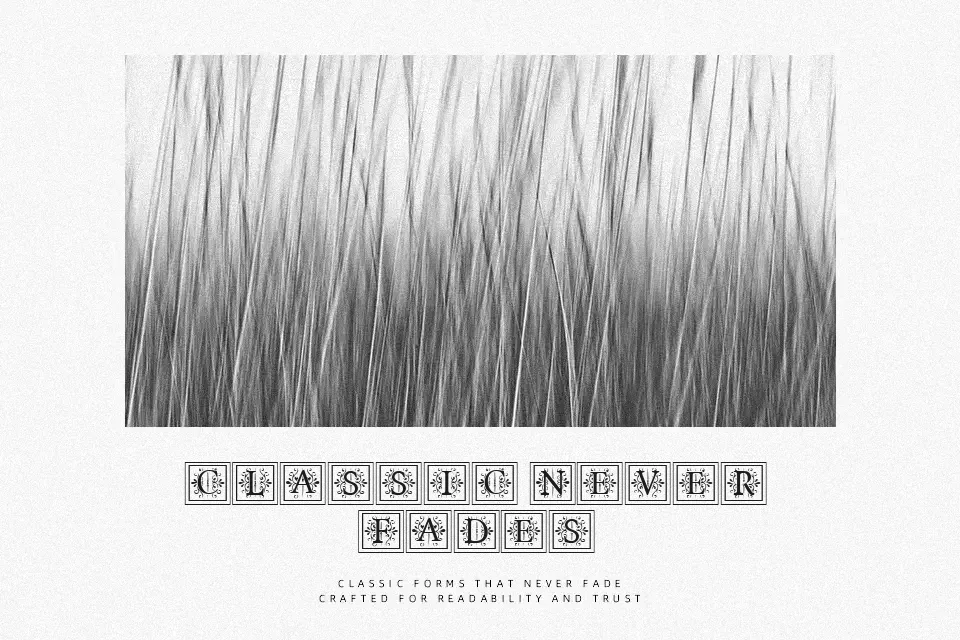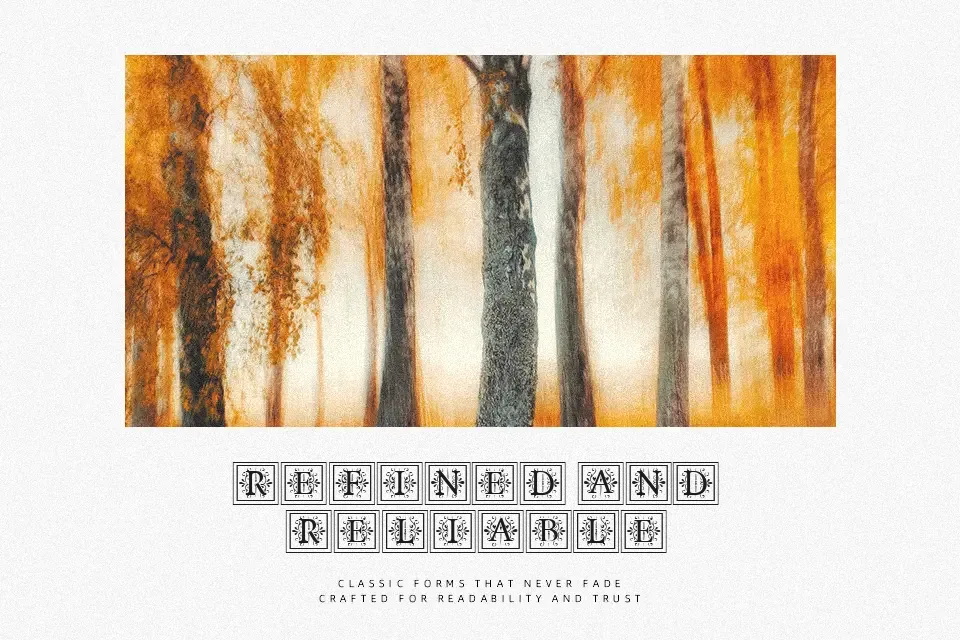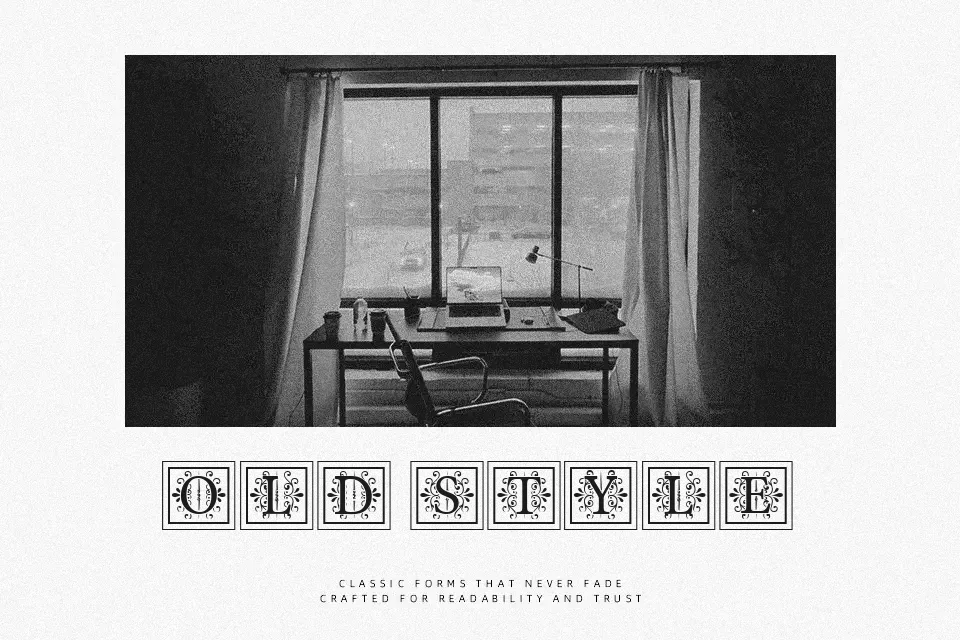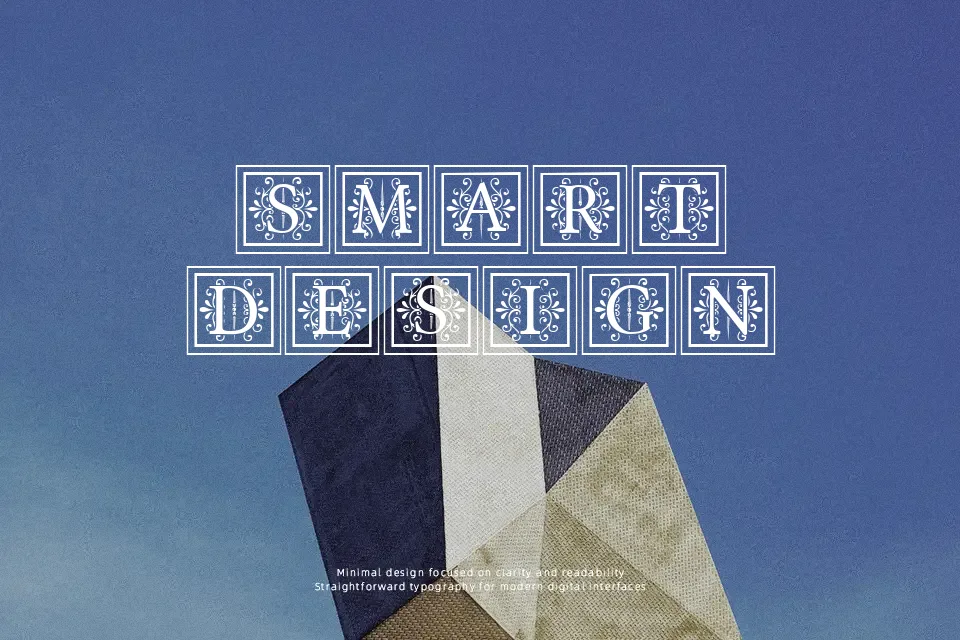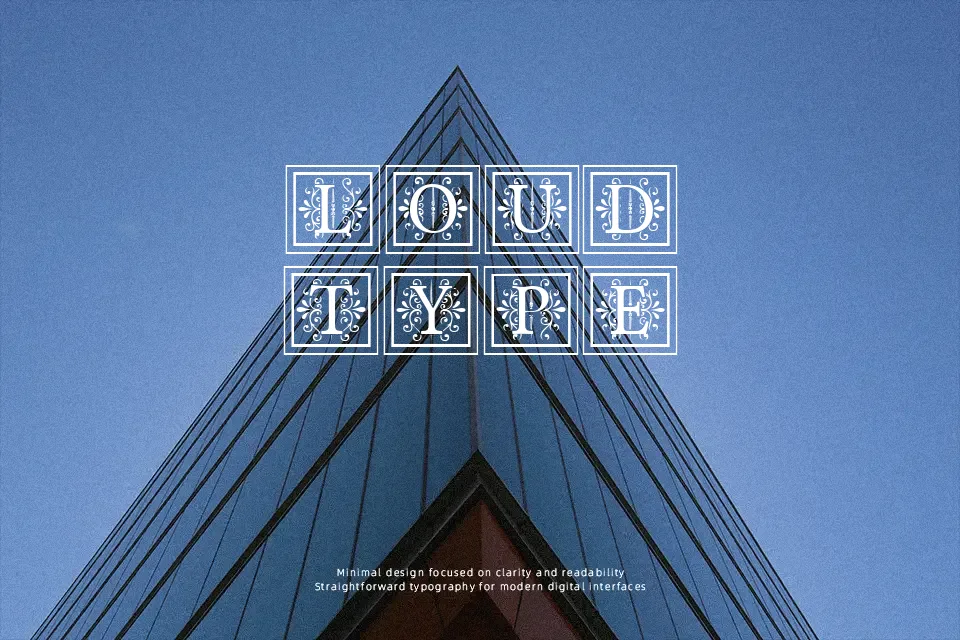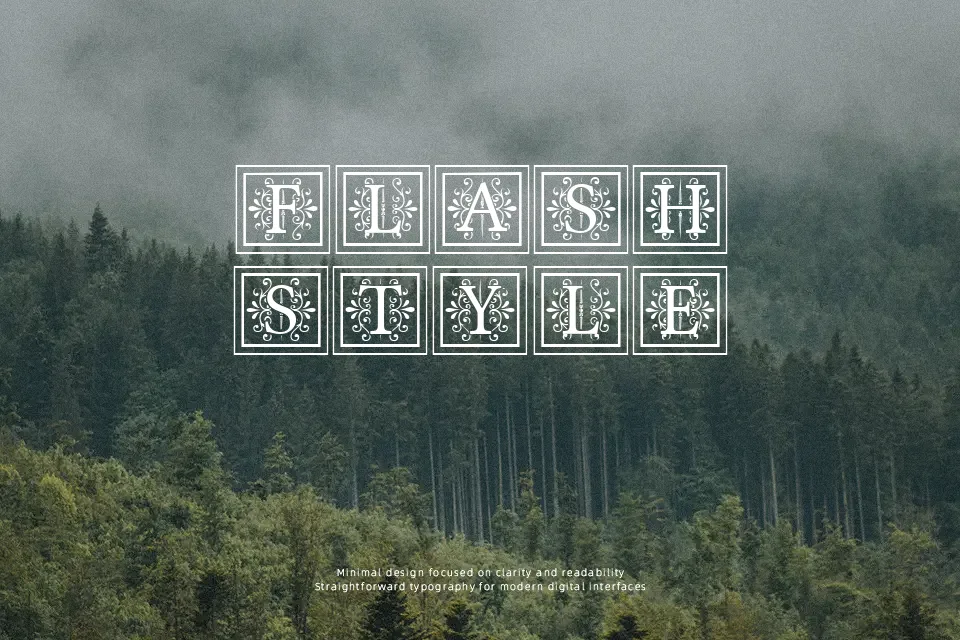
Apex Lake Font
Designed by JLH Fonts
Built from ornamental squares, Apex Lake presents each character as a framed initial with sharp serif details and symmetrical flourishes that echo traditional bookplate lettering. The spacing is generous and the shapes are visually dense, which makes the font visually striking at larger sizes but cumbersome for running text or UI elements. It works well when you need one or a few letters to act as graphic elements, such as drop caps, monograms, or badges that lean into a vintage, decorative feel. However, its limited glyph set and heavy ornamentation make it a poor choice for long headlines, multi-language projects, or any context requiring clean, minimal typography.
drop cap initials in editorials
decorative monograms for branding
vintage-style badges and emblems
ornamental letters on posters
small-size captions or UI labels
corporate reports or formal documents
multi-language layouts needing broad coverage
Perfect for branding, editorial, and headline, with a artistic and decorative style.